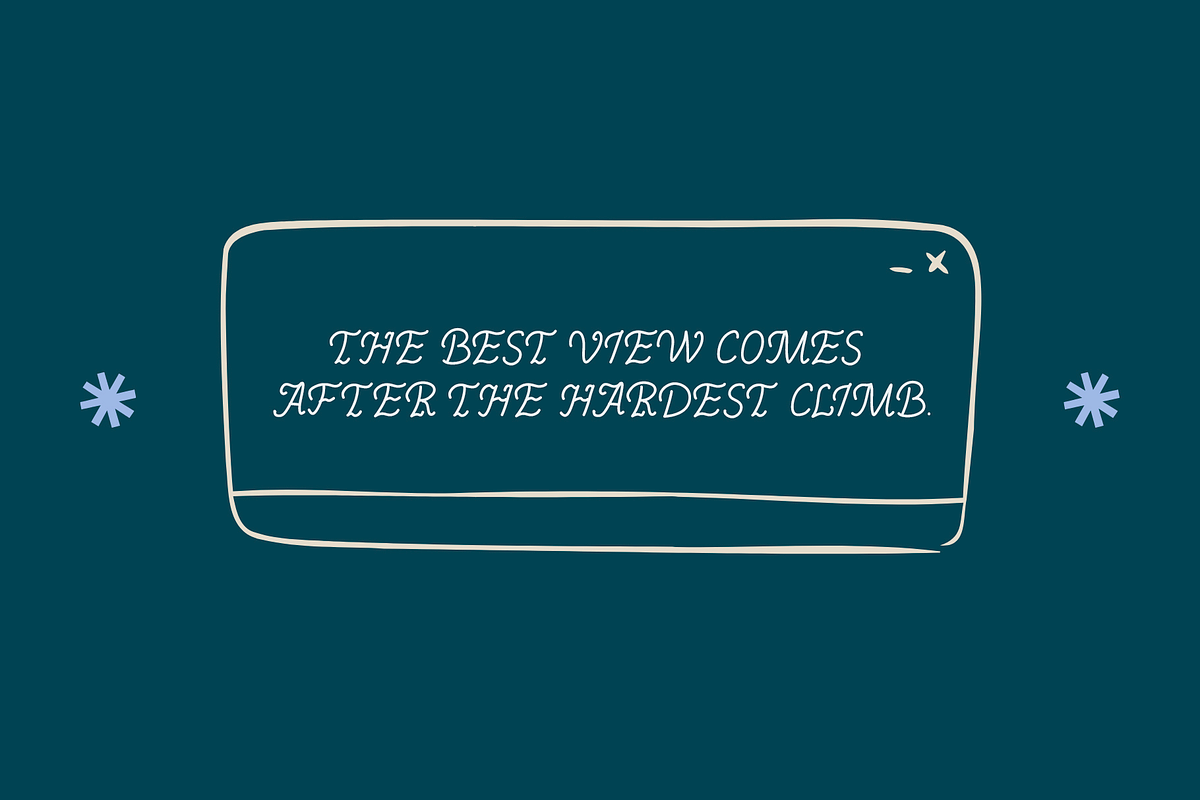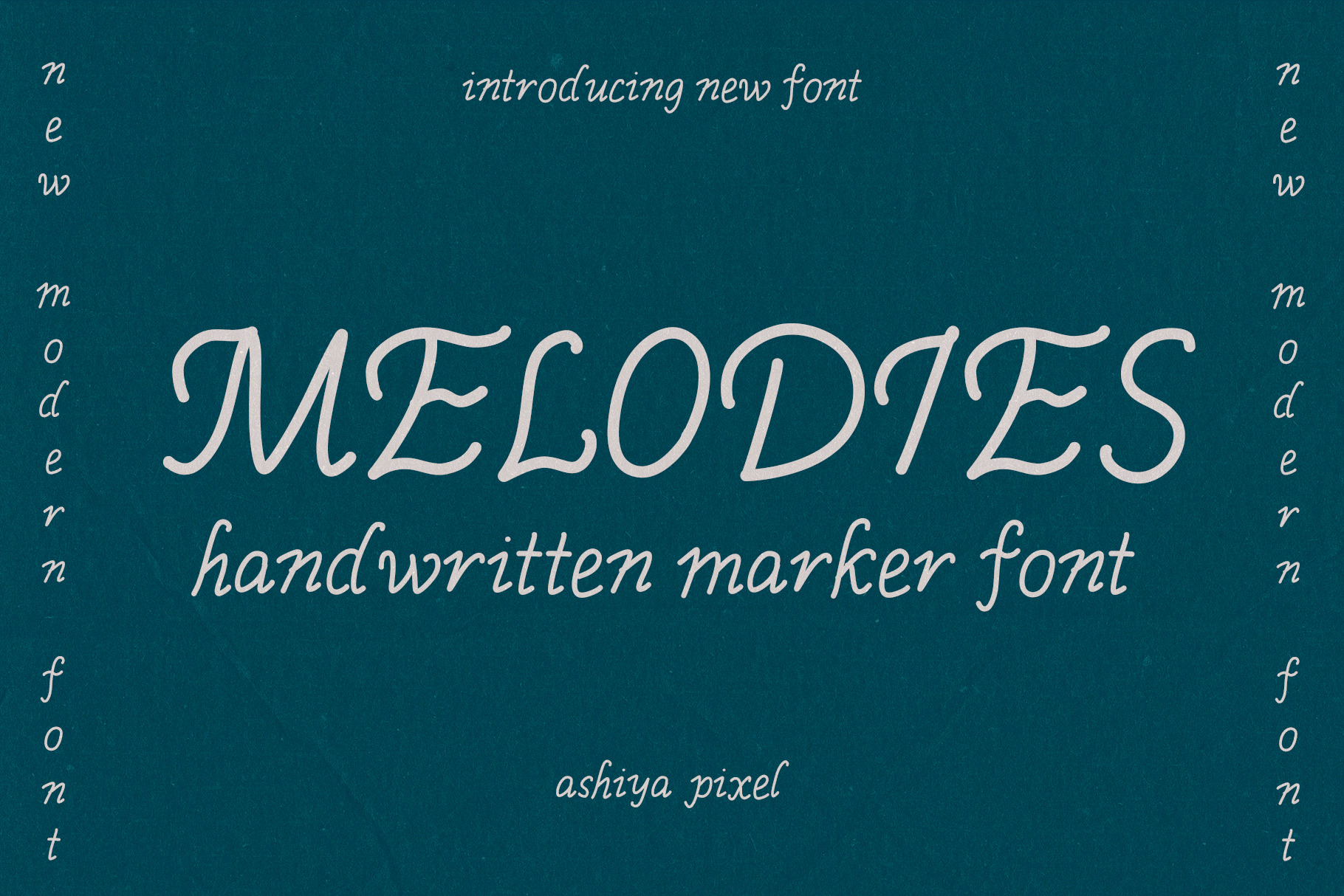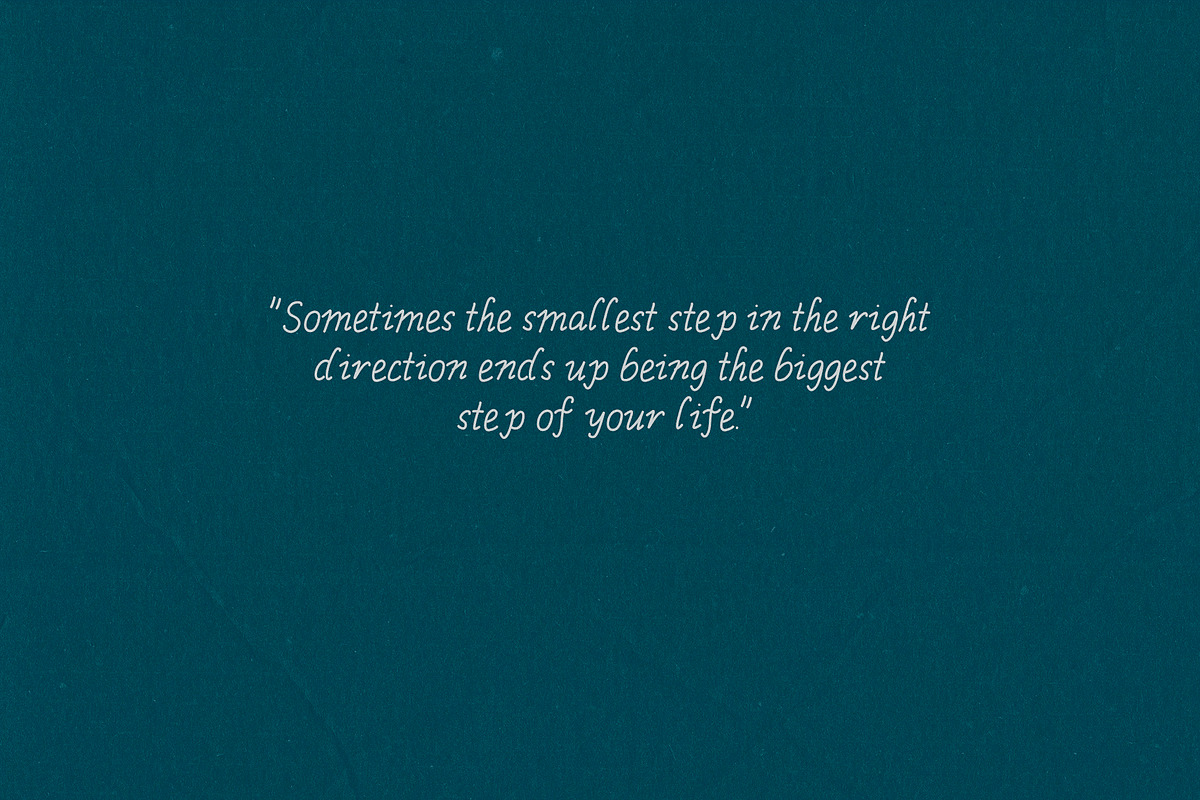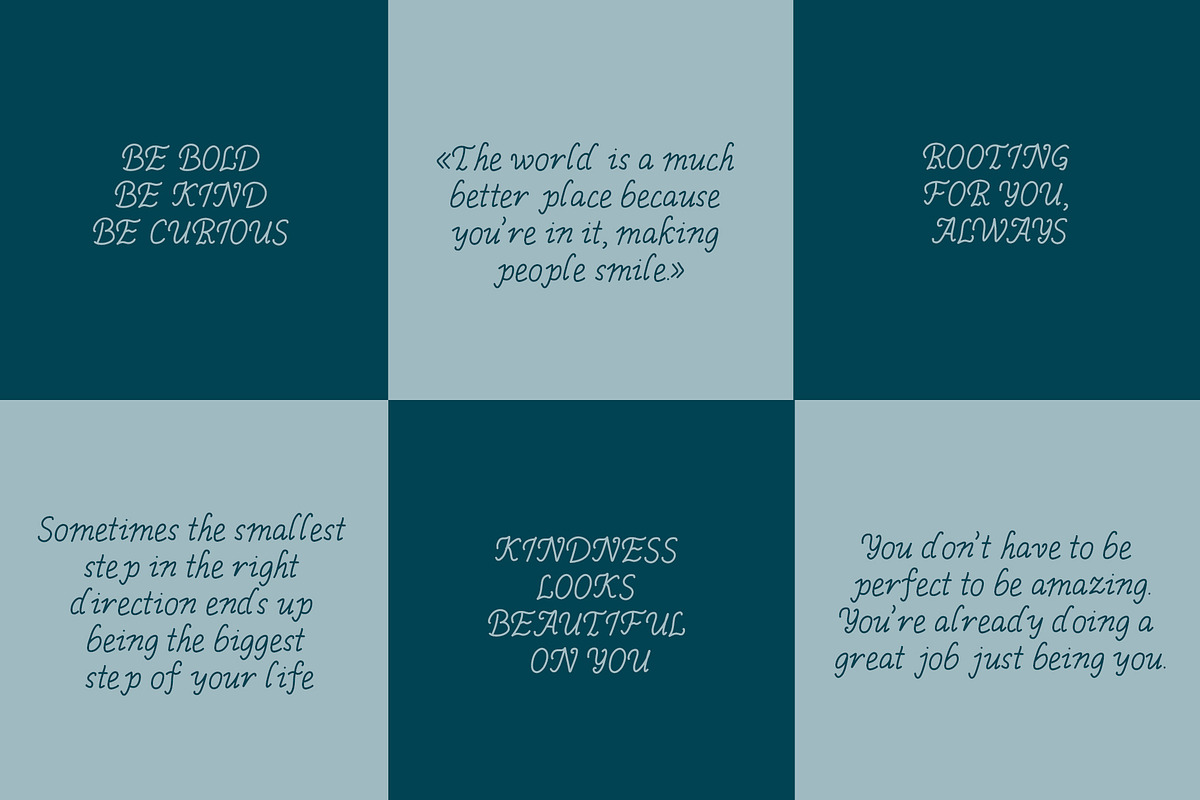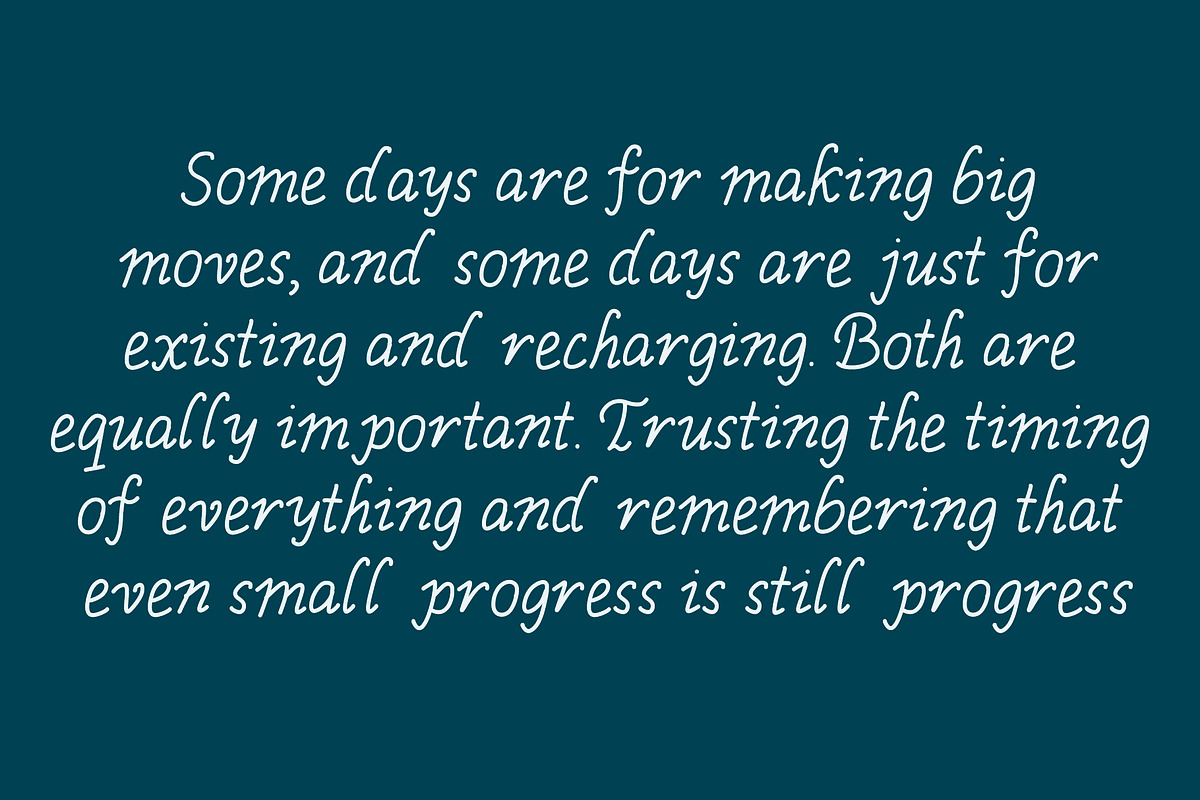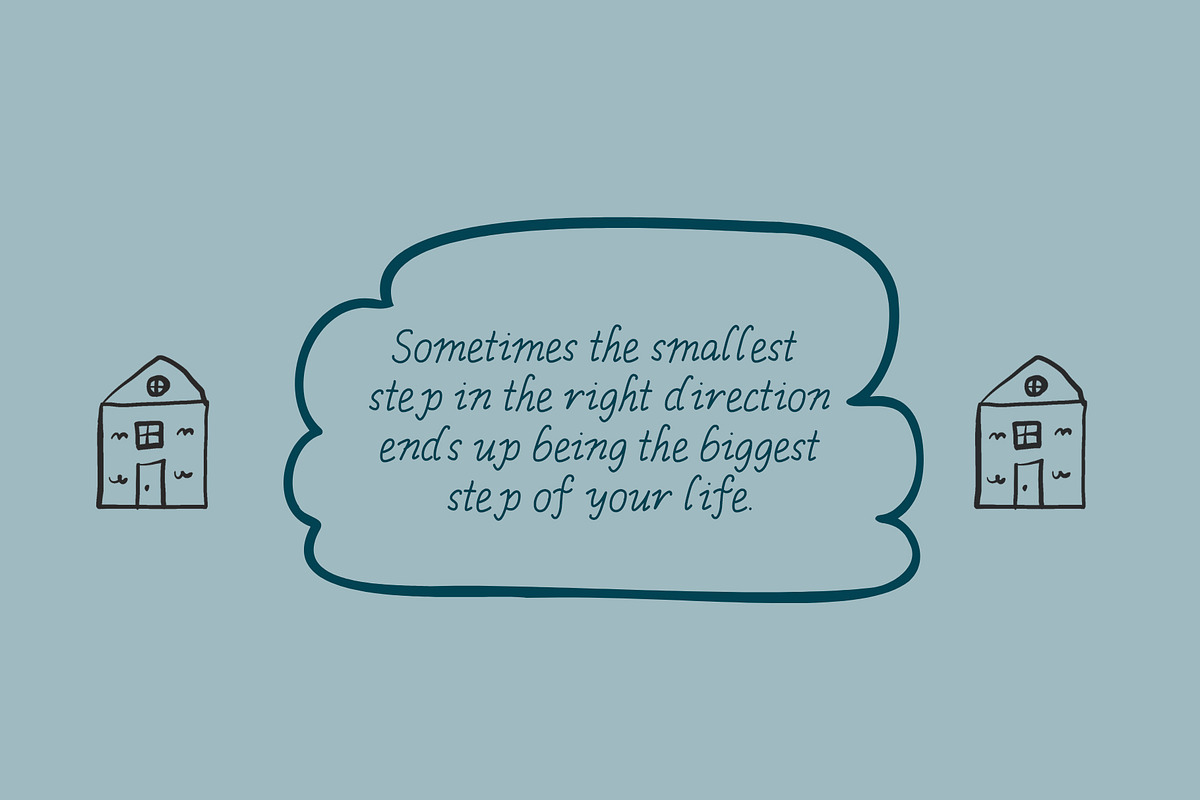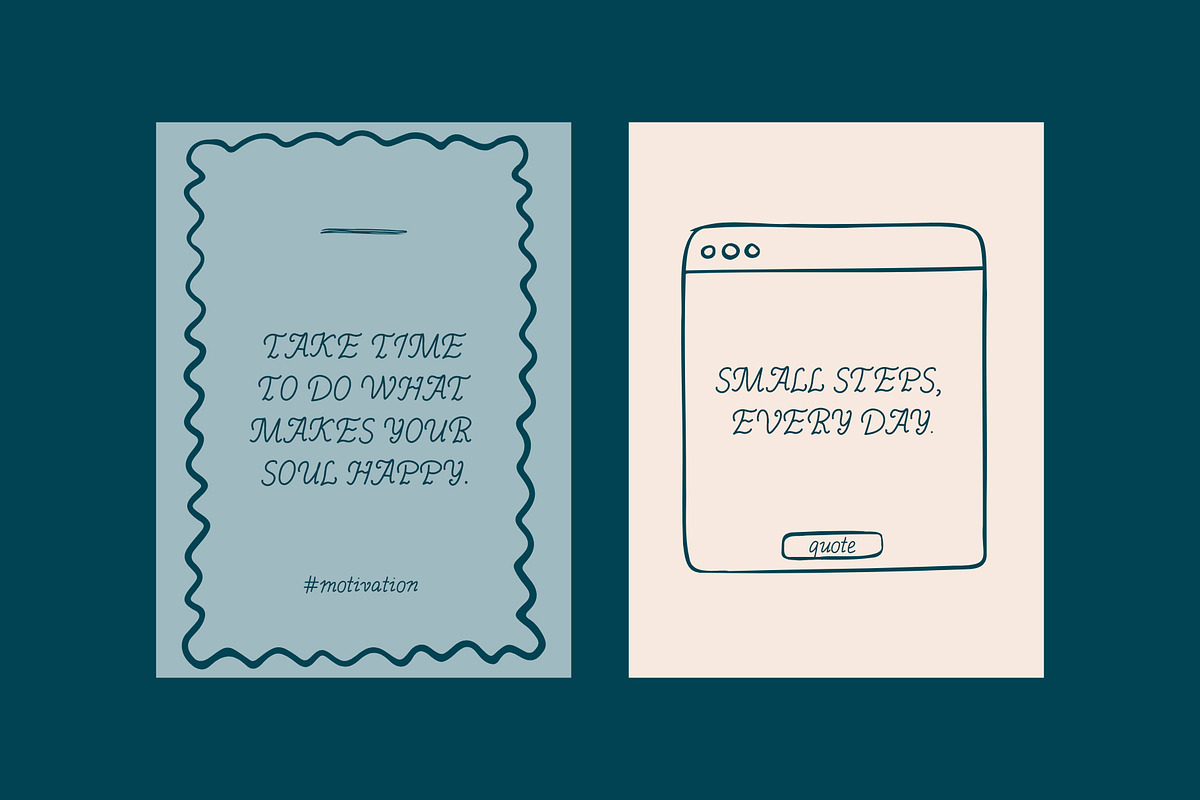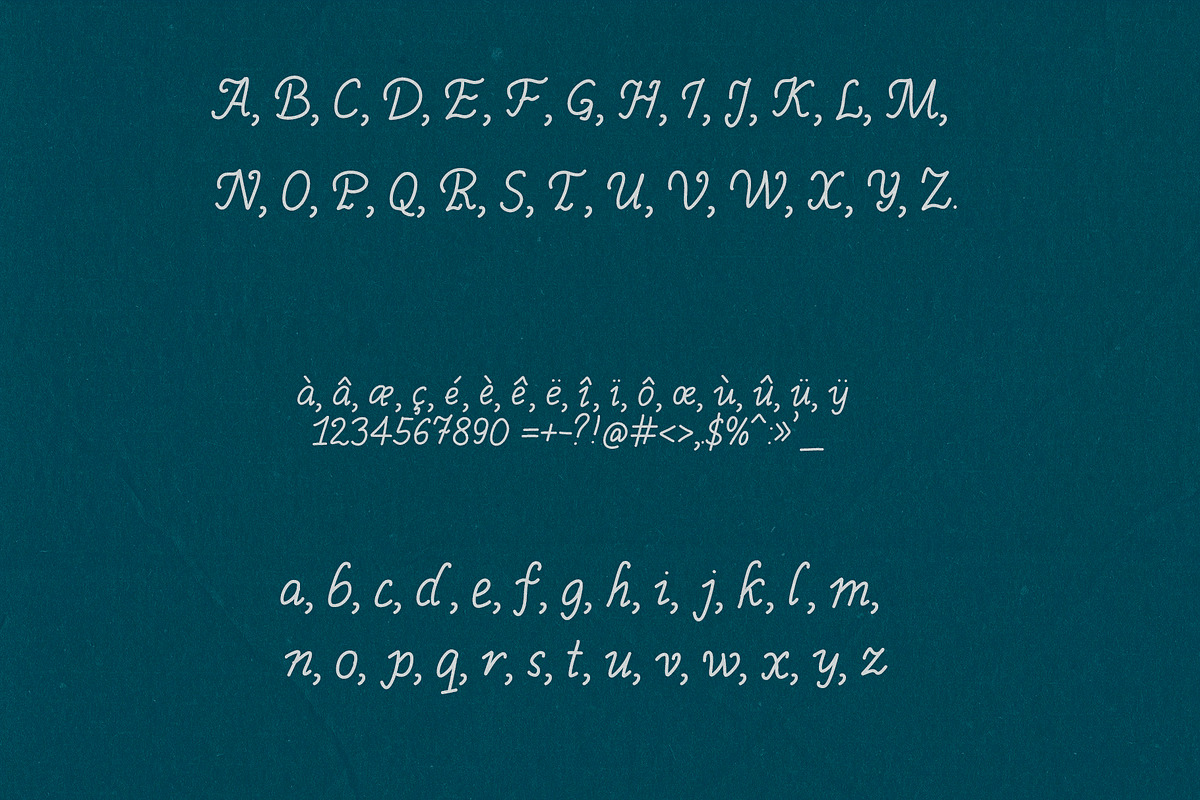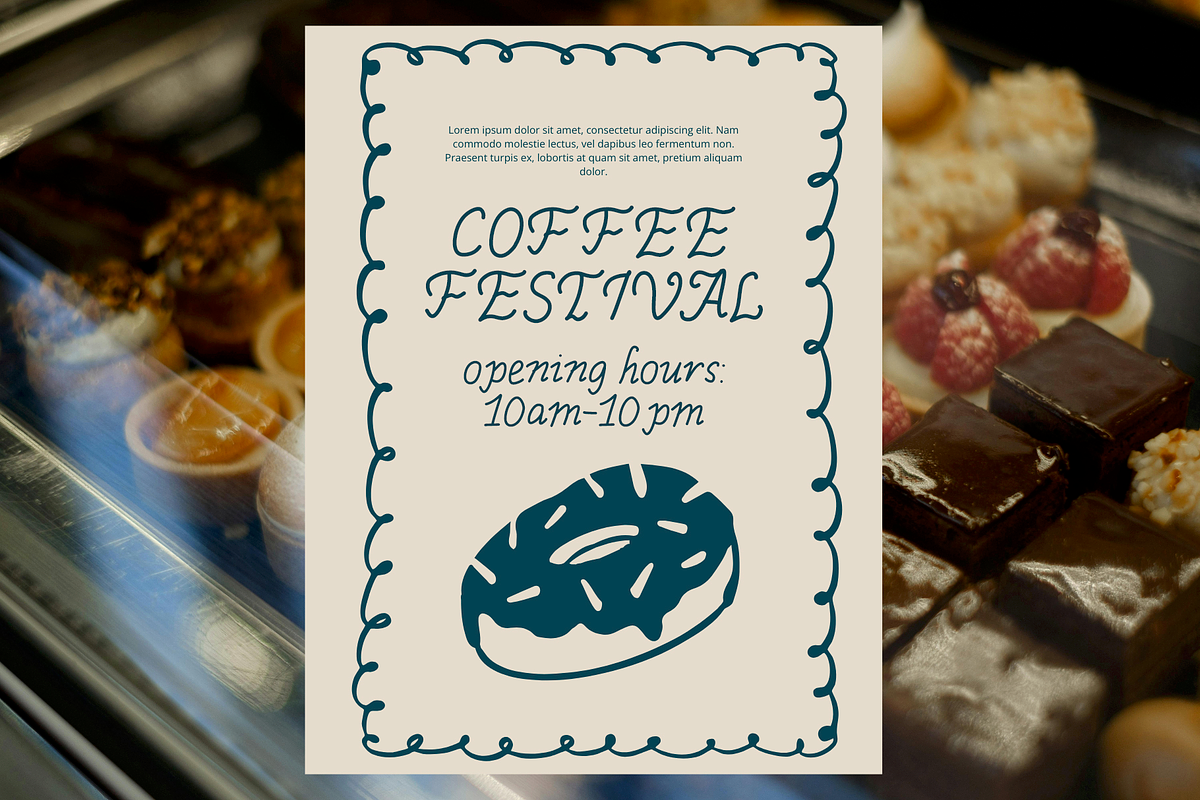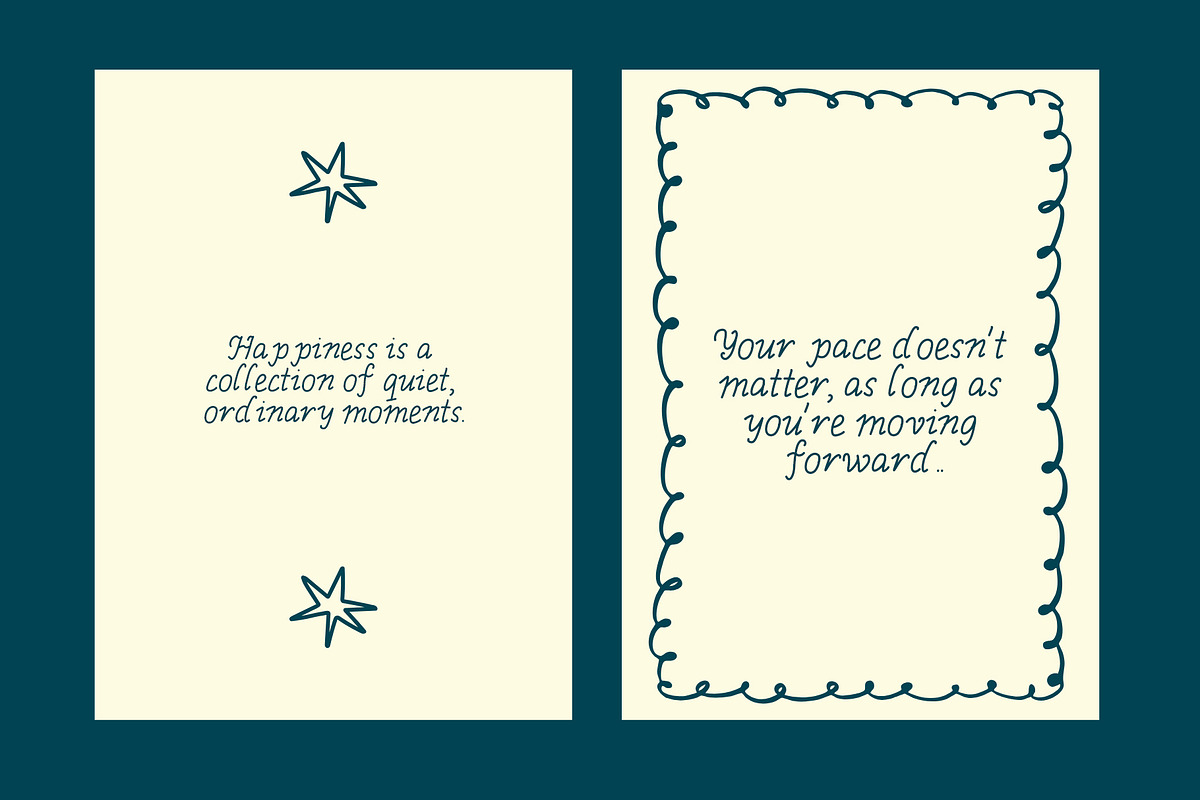
Handwritten Playful Elegant Font
Full Character Set: Includes Uppercase, Lowercase, Numbers, Punctuation, and Multilingual support.
• Versatile Use: Perfect for quotes, branding, product packaging, and social media graphics.